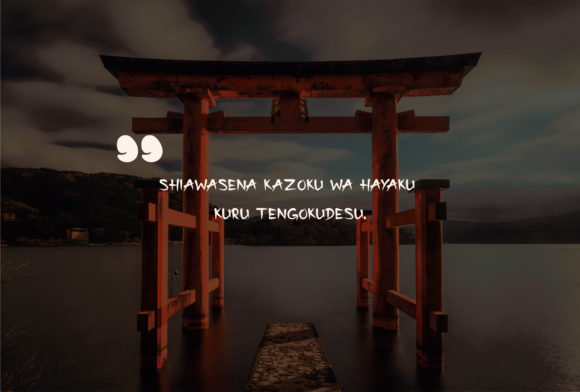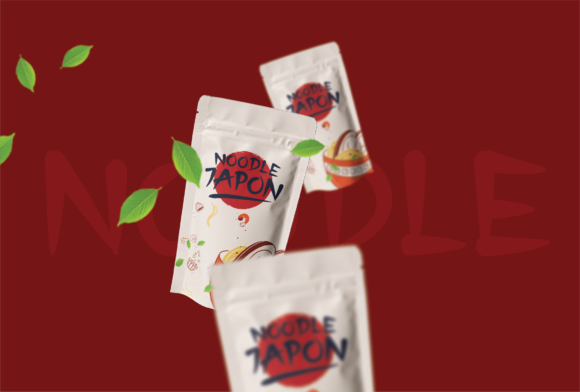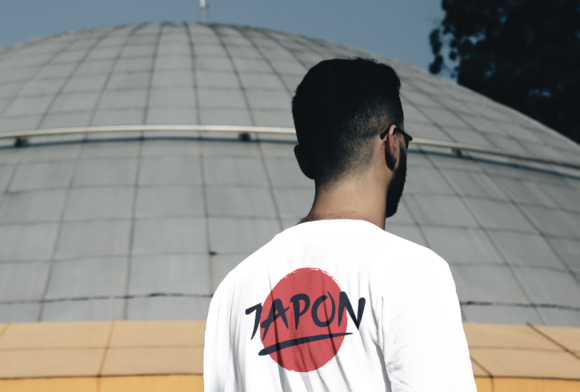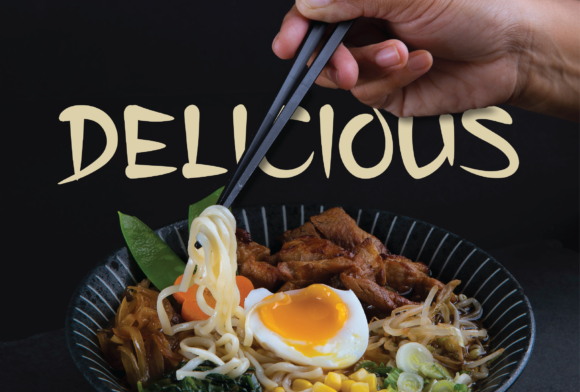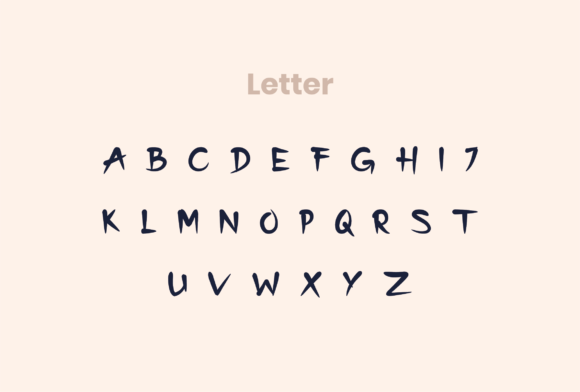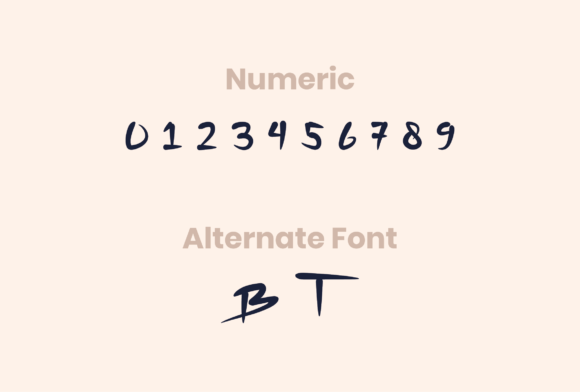
Introduction to Japon Font
Have you ever been working on a creative project, pouring your heart and soul into the details, and then stumbled upon the perfect design element that elevates everything to the next level? That’s exactly what happened when designers discovered the Japon Font, an ornamental Japanese display font that’s been making waves in the design community.
With its unique, high-quality aesthetic, the Japon Font has become a valuable resource for designers looking to add a touch of elegance and sophistication to their work. Whether you’re creating letterheads, titles, or stationery, this font is sure to impress. And the best part? It’s available for free download, making it an accessible design resource for anyone looking to take their creative project to the next level.
But what really sets the Japon Font apart is its versatility. With a transparent background, it can be easily layered over other design elements, allowing you to experiment with different combinations and create truly unique designs.
Japon Font
- Unique characteristics include a distinctive Japanese-inspired aesthetic and a versatile design that can be used in a variety of contexts.
Honest Review: Japon Font
I recently stumbled upon the Japon Font and I must say it’s a great addition to any designer’s toolkit. The font is free to download, which is always a plus. The high-quality design makes it perfect for creative projects where you want to make a lasting impression.
One of the things that works well with the Japon Font is its versatility. It can be used for a variety of projects, from logos to brochures, and it looks great in both print and digital formats. The transparent background option is also a nice touch, allowing you to easily integrate it with other design elements.
Here are some of the key features that I appreciate about the Japon Font:
- Works well for a variety of projects
- The design may not be as modern or trendy as some other fonts on the market.
Overall, I’m very impressed with the Japon Font. It’s a great design resource that can add a touch of elegance and sophistication to any project. I’d definitely recommend it to designers of all levels.
Japon Font
Tips for Getting the Most Out of Japon Font
For the best results, use the Japon Font in combination with other design elements, such as graphics and images. Experiment with different font sizes, colors, and styles to create a unique and creative project. You can also use the font in conjunction with other design resources to add depth and interest to your design.
The Japon Font is ideal for use in a variety of creative projects, including logos, business cards, and brochures. Its high-quality design and transparent background make it perfect for use in presentations and documents. You can also use the font to create a unique and eye-catching title or heading for your project.